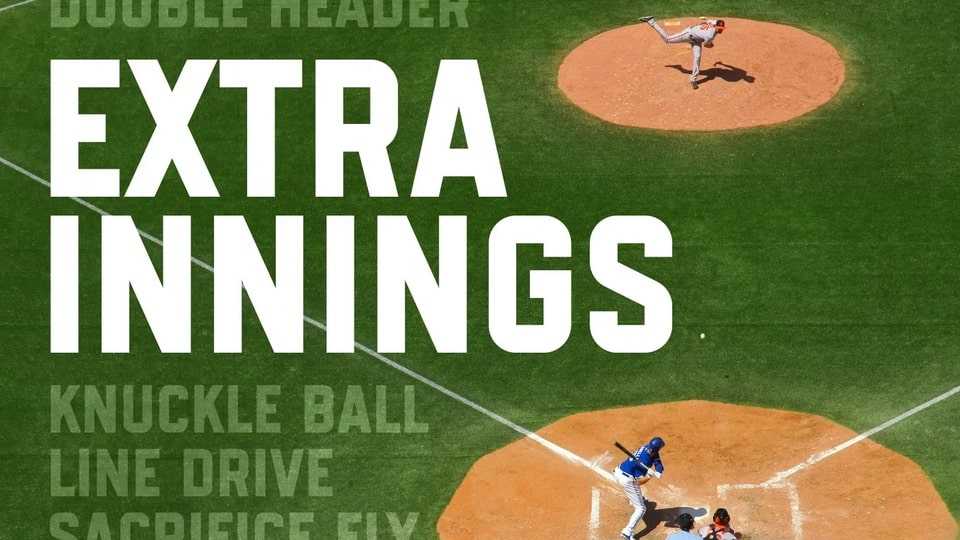
Download Extra Innings font, a bold, sporty typeface designed to capture the energy and excitement of athletic competition with its clean, geometric structure.
Designer: Edward Batkins